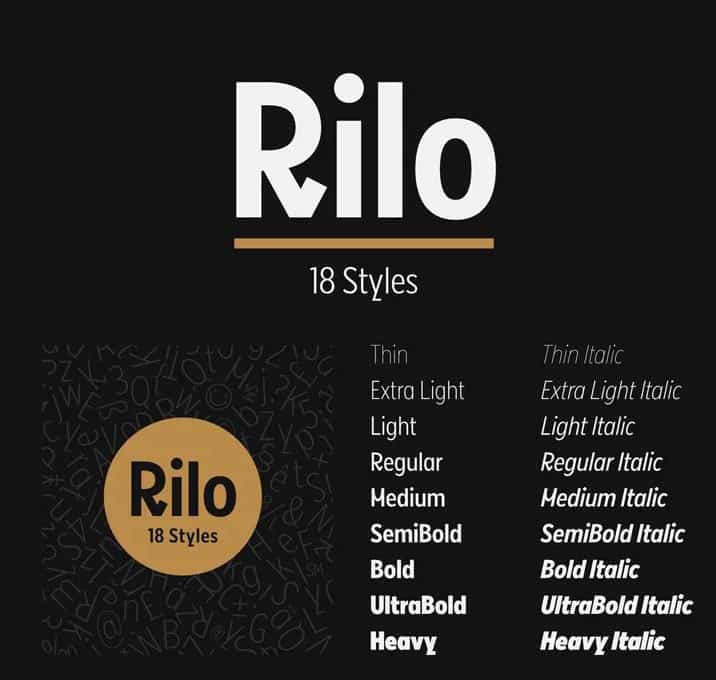
Riloos Sans Serif Font Family
Rilo is a clean 18 style semi-condensed sans-serif with 9 weights + Italics. This unique Supreme Font has a handful of unique glyphs with conservative stylistic alternatives